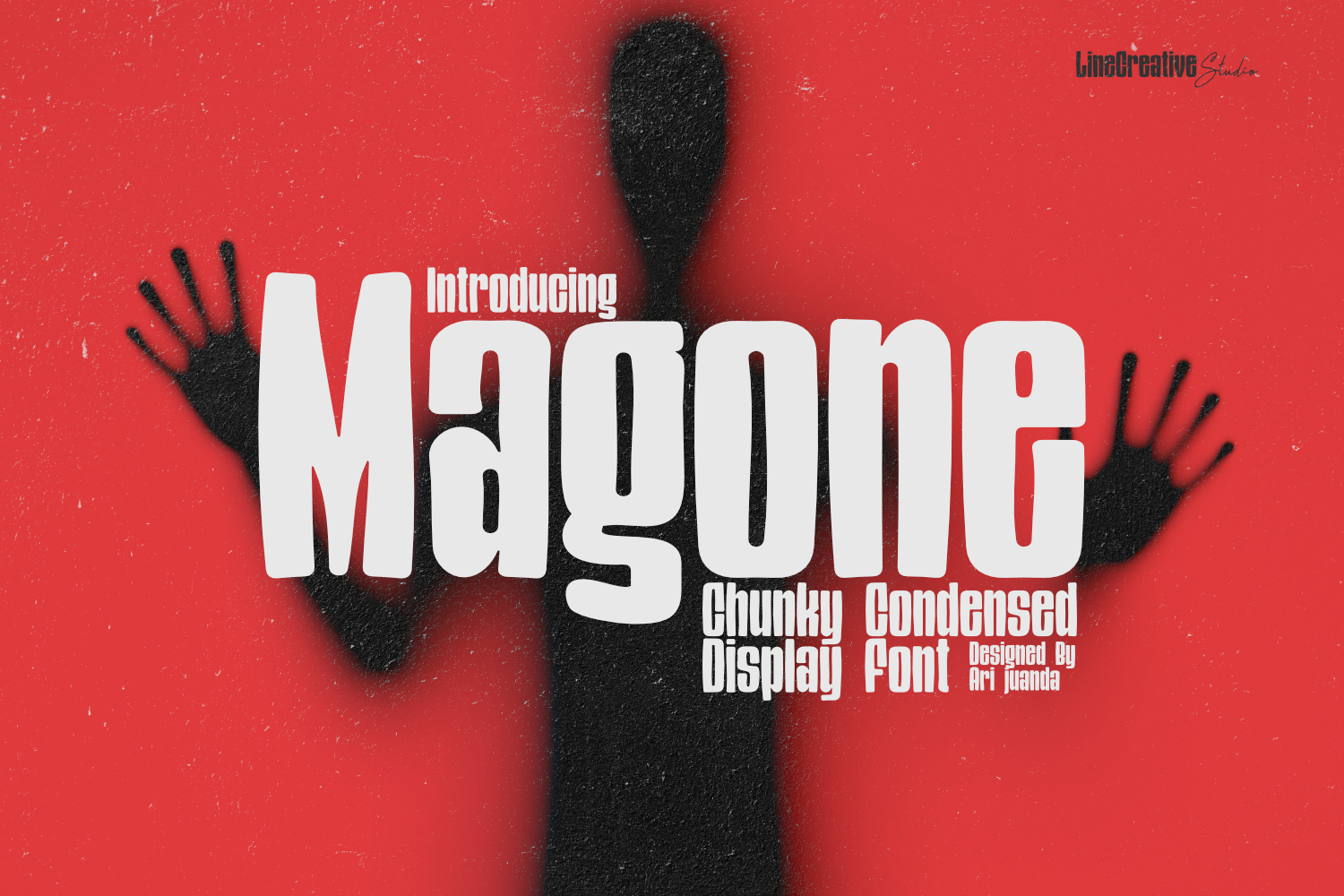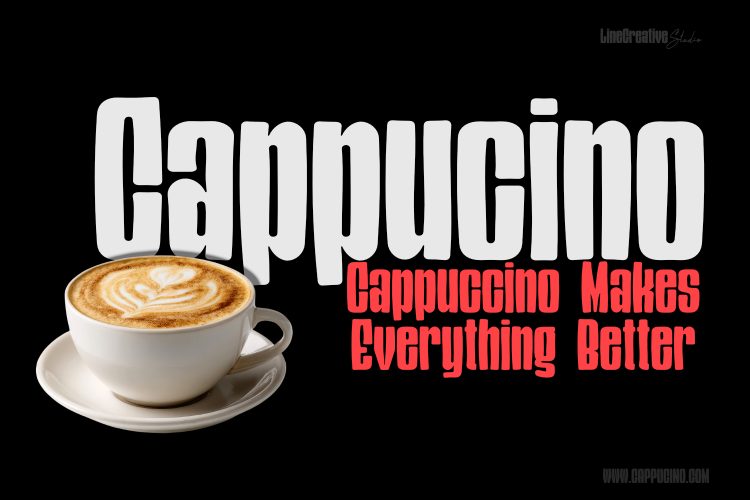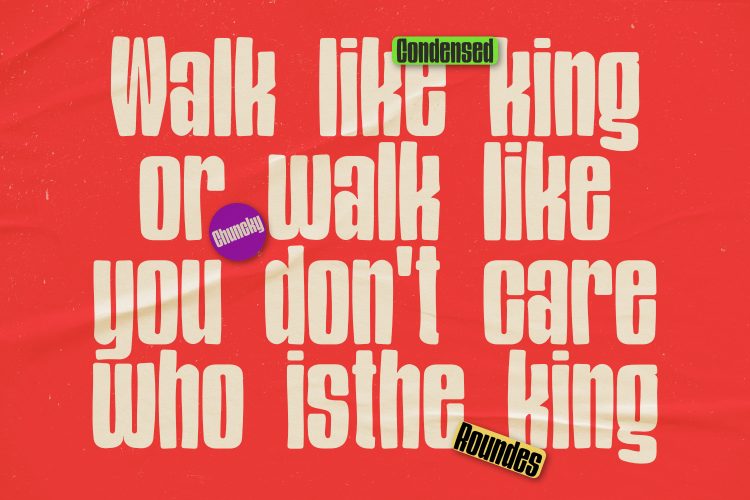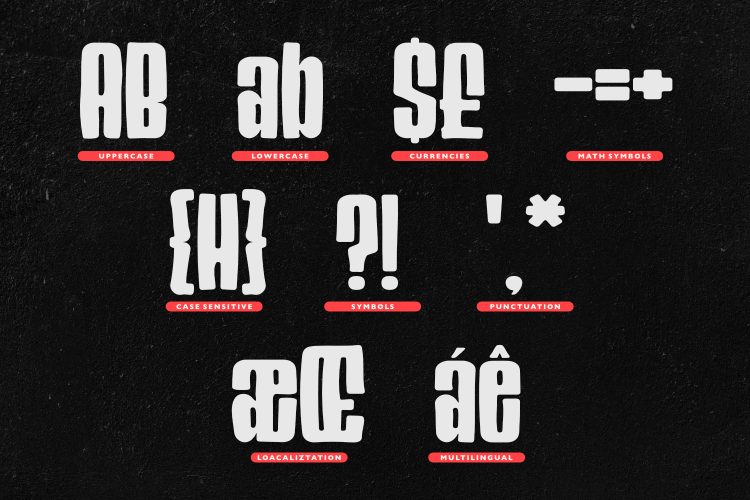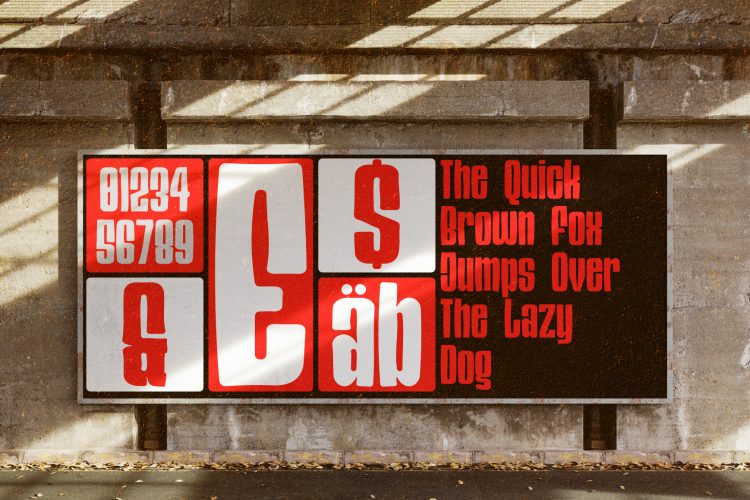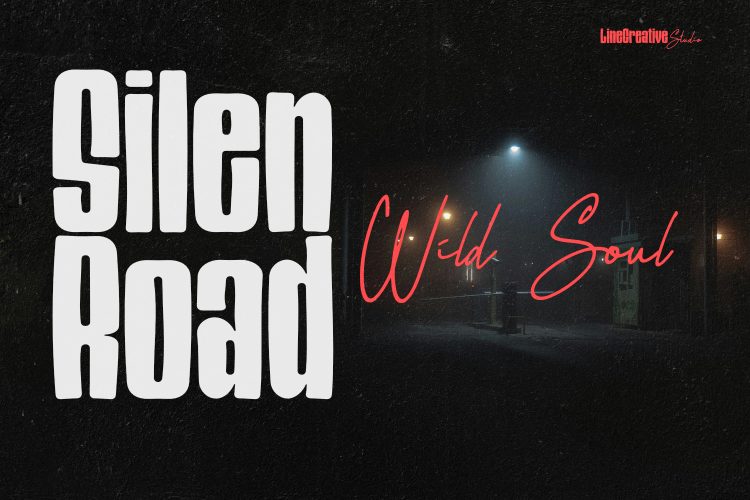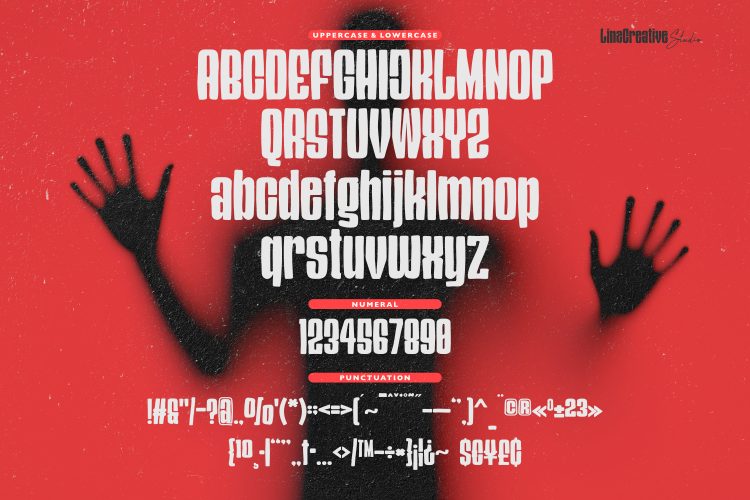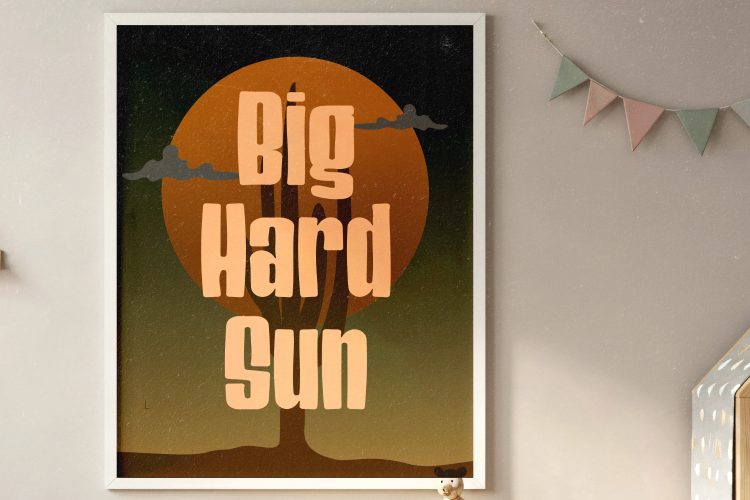
Magone Chunky Condensed Display Font
Magone combines a chunky condensed structure with rounded details, irregular shapes, and a distinctive blur-inspired character. Its bold proportions create a strong visual presence while the unconventional letterforms give the typeface an expressive and energetic personality.
Magone was created for designers who want display typography with a different visual personality. Instead of relying on perfectly uniform geometric shapes, the letterforms feature intentionally irregular contours that create a more expressive appearance. The rounded details and manually created blur effect give the characters a fluid and slightly distorted quality, making Magone feel dynamic and unconventional.
As a chunky condensed display font, Magone combines substantial letterforms with a narrow overall structure. This makes it suitable for designs where typography needs to stand out without taking up excessive horizontal space. Large headlines, titles, logos, posters, and promotional graphics can benefit from its strong and compact appearance.
A Distinctive Display Style
One of the defining characteristics of Magone is the relationship between its chunky structure and irregular shapes. The letters have a bold visual weight, while their rounded and uneven forms prevent the typeface from feeling overly rigid or conventional.
The blur-inspired construction is also an important part of the font’s personality. Rather than applying a simple digital blur effect to finished letters, the shapes were manually developed to create an irregular appearance within the letterforms themselves. This gives Magone a handcrafted and experimental quality that can make typography feel more active and expressive.
The result is a display font that works particularly well when the typography itself needs to become part of the visual composition.
Perfect For
Magone can be used for a wide range of creative and commercial design projects, especially when you want a bold and distinctive typographic style.
- Logo Design & Branding
- Posters & Advertising
- Packaging Design
- Fashion & Streetwear Graphics
- Social Media Graphics
- Album & Cover Artwork
- Editorial Headlines
- Event Graphics
- Promotional Designs
- Creative Typography
- Large Headlines & Titles
- Merchandise Design
Features
- Chunky Condensed Display Style
- Bold and Heavy Letterforms
- Rounded Letterform Details
- Intentionally Irregular Shapes
- Manually Created Blur-Inspired Forms
- Uppercase & Lowercase Characters
- Numerals & Punctuation
- Strong Visual Impact
- Designed for Large Display Text
Why You’ll Love Magone
Magone offers a different approach to chunky display typography. Its condensed proportions provide a compact and powerful silhouette, while the rounded and irregular forms add personality to every word.
The combination of bold structure and unconventional letterforms makes Magone useful for designers working on projects that need typography with a strong visual identity. It can bring an expressive and contemporary feeling to branding, posters, packaging, fashion graphics, and other visual communication projects.
Magone is especially effective when used at large sizes, where the unusual shapes and details of the letters have room to become part of the overall design. It can work as a dominant headline, a striking logo treatment, or a central typographic element in a poster or campaign.
If you are looking for a chunky font with a condensed structure but want something less predictable than a standard bold typeface, Magone provides an expressive alternative. Its rounded details, irregular construction, and blur-inspired character give the font a distinctive look that can help your typography stand apart.
Magone for Creative Typography
Magone is designed for experimentation. Try combining different words, sizes, spacing, and layouts to explore the personality of the typeface. Its strong weight makes it suitable for impactful short phrases, while its irregular forms can add visual movement to larger compositions.
Whether you are designing a brand identity, poster, packaging concept, social media campaign, fashion graphic, or eye-catching headline, Magone brings a bold and expressive character to your typography.
Magone — expressive, energetic, and attention-grabbing.